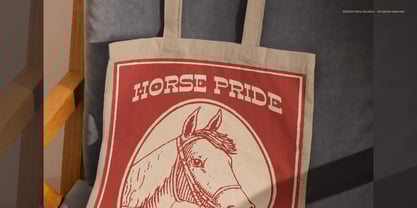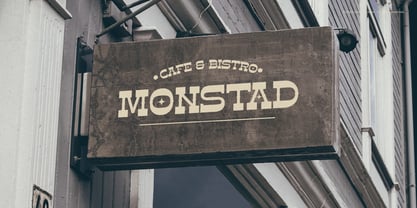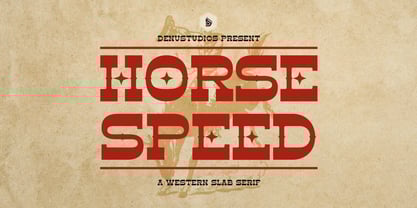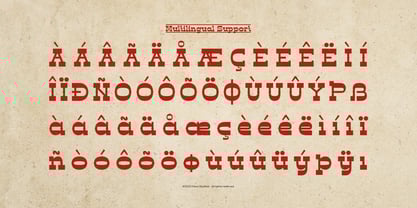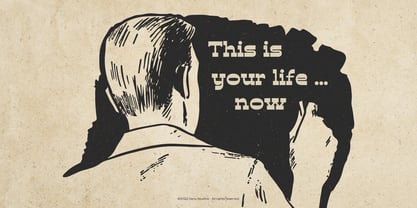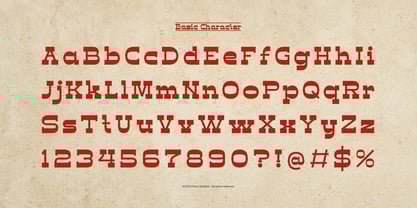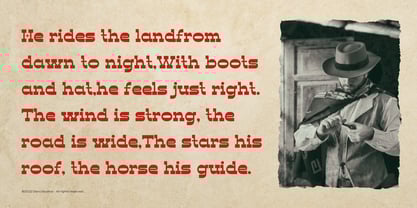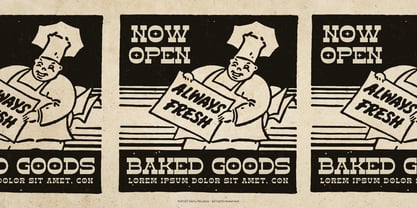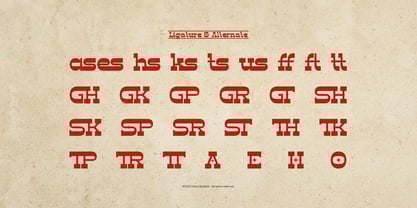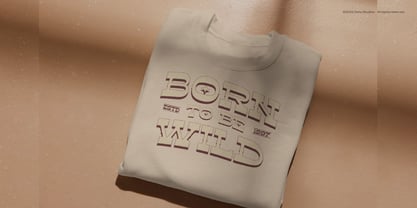
Horse Speed
The Horse Speed Font Family was designed by Dede Nugraha and published by Denustudio. Horse Speed contains 2 styles and family package options. More about this family
Horse Speed | Western Slab Serif, from Denustudios, suitable for any projects such as: logos, branding projects, homeware designs, product packaging, mugs, quotes, posters, shopping bags, t-shirts, book covers, name card, invitation cards, greeting cards, label, photography, watermark, special events, and all your other lovely projects that need Condensed Display Font a taste.
• Regular and Italic
• Alternate and Ligature